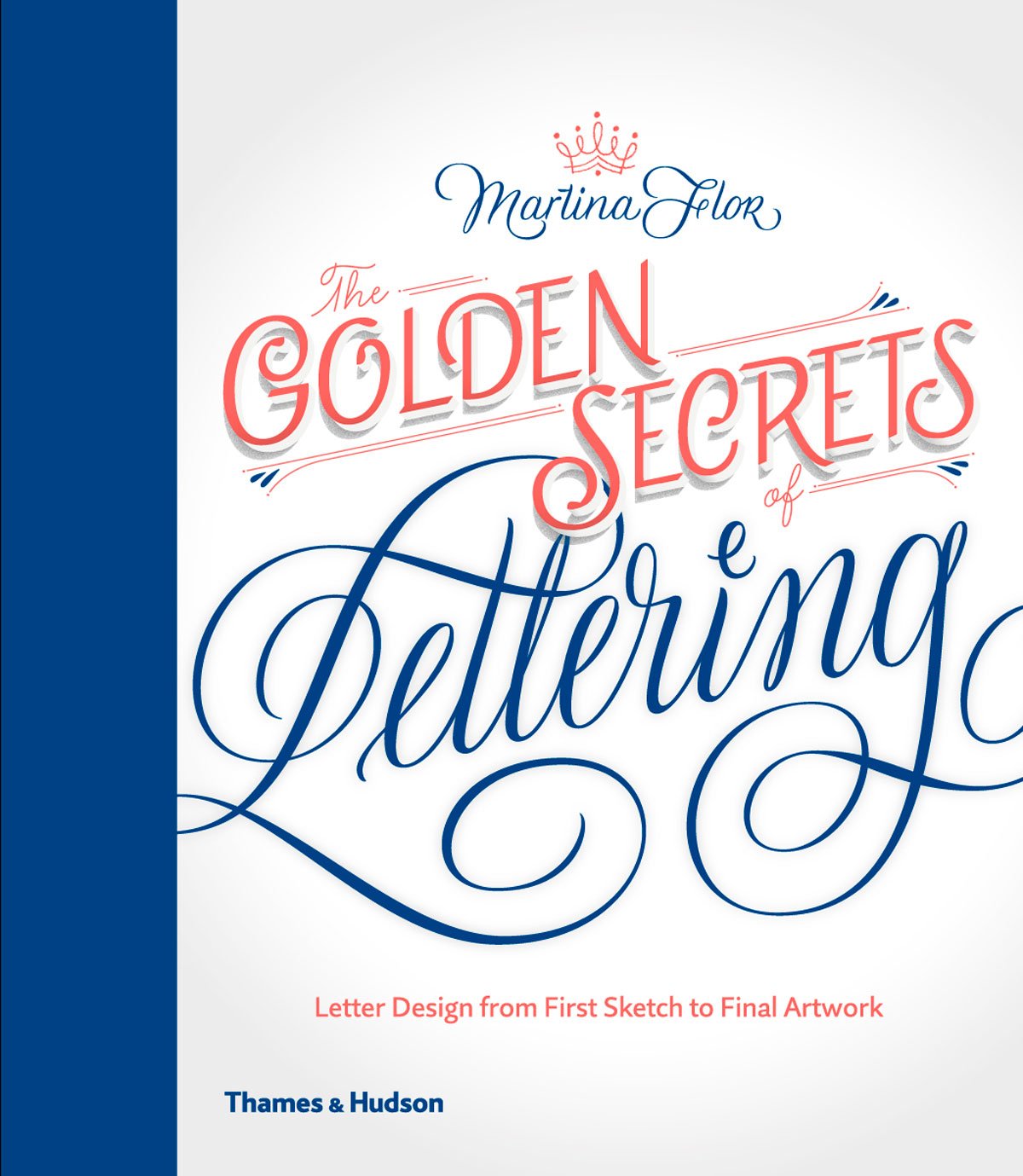
The Golden Secrets of Lettering: Letter Design from First Sketch to Final Artwork
Through easy-to-understand instructions and guidelines, numerous inspirational examples, and hundreds of sketches and illustrations, Martina Flor shows how to transform initial lettering concepts and sketches into a well-shaped, exquisite piece of digital lettering that can be published and sold.
Learn how to train your typographic eye by studying lettering samples and the anatomy of letters; explore concepts of hierarchy, composition and flourishes; and discover the many different ways of creating letter shapes. In addition, Flor explains the process of creating a lettering project step by step – from start to finish, from analogue to digital – and gives valuable tips about how to make a career as a lettering artist.